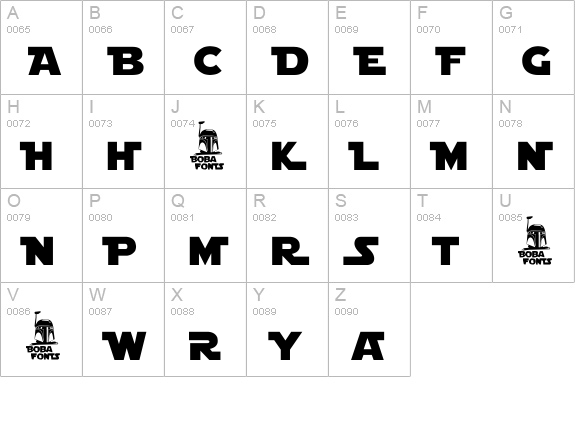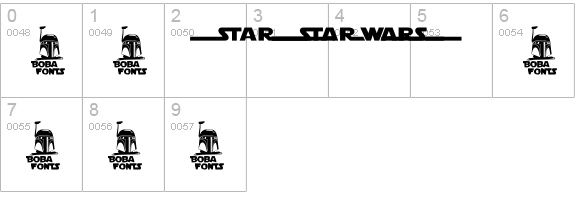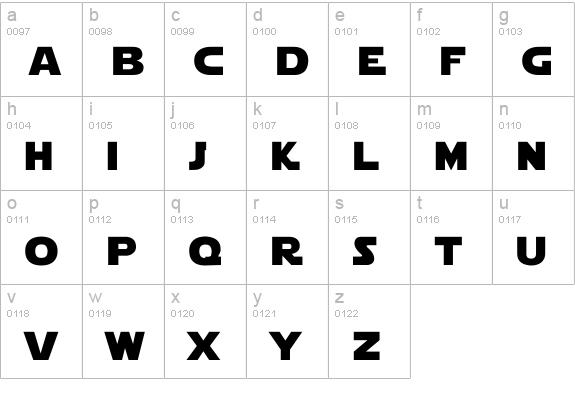
Star Jedi Logo DoubleLine1 font is a stunning display font that is perfect for capturing the adventurous spirit of a galaxy far, far away. With its bold and intricate design, this font is guaranteed to make a lasting impression. The unique double line style of Star Jedi Logo DoubleLine1 font adds an extra touch of excitement to any design project. Whether you're creating a logo for a sci-fi movie or designing a poster for a Star Wars-themed event, this font will bring your vision to life. But the best part? Star Jedi Logo DoubleLine1 font is completely free! That's right, you can download this incredible font at no cost from FontsMarket.com. This means you can unleash your creativity without breaking the bank. With its wide range of characters and symbols, Star Jedi Logo DoubleLine1 font offers endless possibilities for your design needs. From epic movie titles to eye-catching headlines, this font will make your text stand out from the crowd. So why wait? Download Star Jedi Logo DoubleLine1 font today and let your imagination soar to new heights. Whether you're a graphic designer, a filmmaker, or simply a fan of the Star Wars universe, this font is a must-have addition to your creative toolbox. Don't miss out on the opportunity to enhance your designs with this incredible free font. Get it now at FontsMarket.com and start creating captivating visuals that are out of this world.